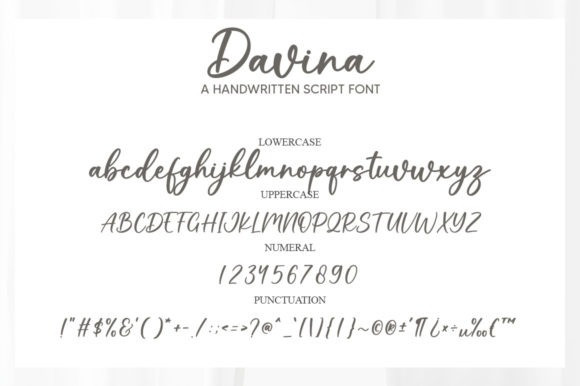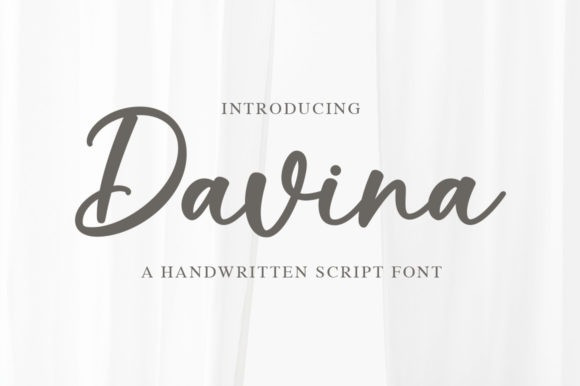
Davina Font
Davina Font is a delicate, elegant, and flowing handwritten font. It has beautiful and well-balanced characters and as a result, it matches a wide pool of designs. Davina is PUA encoded, which means you can access all of the glyphs and swashes with ease!